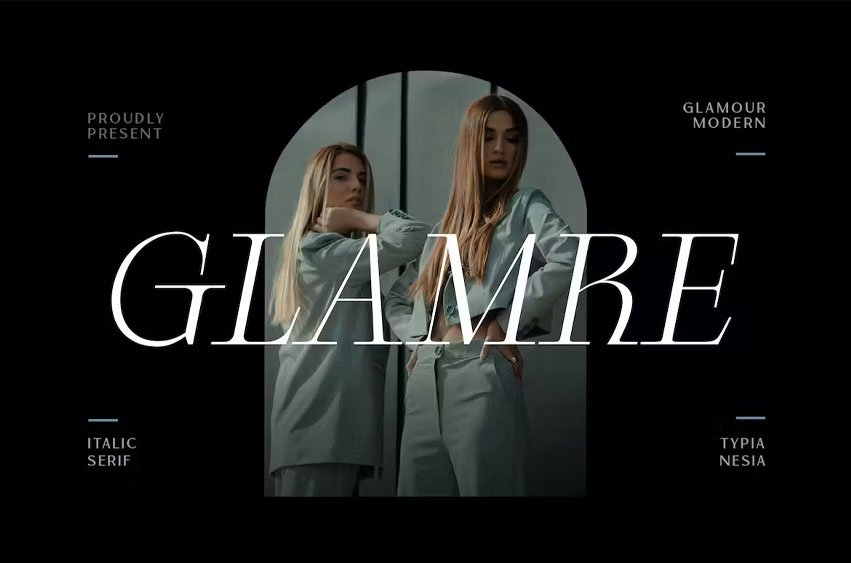
Glamre Font is an Elegant Glamour and Stylish Italic Serif – Modern Classy and Feminine Beauty Italic Font
Glamre Elegant Italic Serif font is perfect for your up coming projects. Such as luxury logo and branding, classy editorial design, woman magazine, cosmetic brand, fashion promotional, art gallery branding, museum, historical of architectural, boutique branding, stationery design, blog design, modern advertising design, card invitation, art quote, home decor, book/cover title, special events and any more.